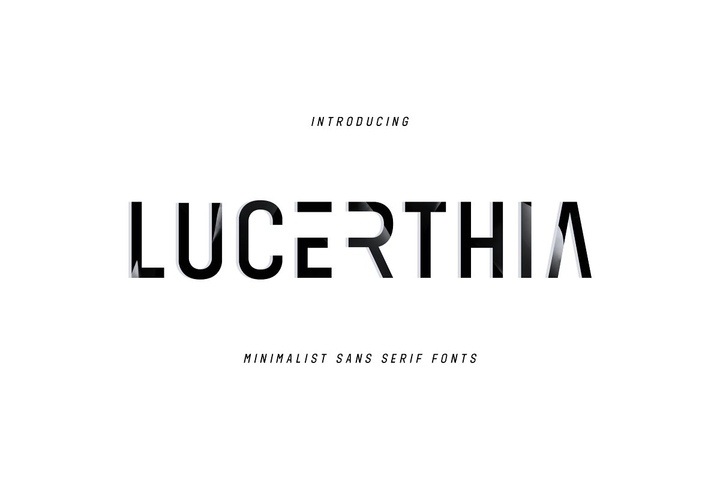
LUCRETHIA - Minimal Sans Serif Fonts
LUCRETHIA - Minimal Sans Serif Fonts is perfect for luxury minimalist branding, contemporary art galleries, sophisticated fashion campaigns, clean architecture firms, premium wellness centers, modern editorial design, upscale hospitality signage, refined corporate identity, elegant product packaging, and cultured lifestyle publications.
LUCRETHIA - Minimal Sans Serif Fonts is exciting because it masterfully embodies the principles of sophisticated minimalism and refined simplicity, creating a sans-serif typeface that represents the pinnacle of understated elegance and contemporary luxury design. This font brings minimalist sophistication and refined clarity to any project, making it ideal for luxury brands that want to convey exclusivity, intellectual sophistication, and the confident restraint that defines true luxury. Its minimal character and sophisticated appeal create an atmosphere of cultured refinement that resonates with discerning audiences who appreciate the beauty of thoughtful simplicity.
LUCRETHIA - Minimal Sans Serif Fonts family includes thin, light, regular, medium, bold, and black weights, each available in roman and italic styles with refined character sets and minimalist symbols, providing designers with comprehensive tools for creating sophisticated minimal typography and elegantly restrained brand experiences.
This distinguished minimal typeface combines contemporary luxury aesthetics with functional excellence, making LUCRETHIA - Minimal Sans Serif Fonts Free Download a premium choice for projects celebrating refined simplicity and sophisticated minimalism. The font's elegantly crafted letterforms feature minimal proportions and luxury styling that reflect the sophisticated restraint and intellectual confidence of contemporary minimalist design philosophy.
Whether you're designing luxury brand identity, sophisticated architectural materials, or refined hospitality communications, LUCRETHIA - Minimal Sans Serif Fonts delivers unmatched minimal authenticity and luxury appeal. The font excels in both intimate luxury applications and grand minimal environments where sophisticated restraint and cultured simplicity create transformative premium experiences.
Luxury design professionals choose LUCRETHIA - Minimal Sans Serif Fonts for its ability to instantly communicate sophisticated minimalism and luxury restraint while creating emotional connections with affluent audiences seeking authentic refined experiences. The font's minimal character makes it particularly effective for luxury fashion houses, contemporary galleries, and sophisticated wellness brands.
Each character reflects the refined artistry of minimal design, featuring elegant construction and sophisticated proportions that create typography as beautiful and refined as minimalist architecture, luxury spaces, and the most sophisticated expressions of contemporary minimalist elegance.